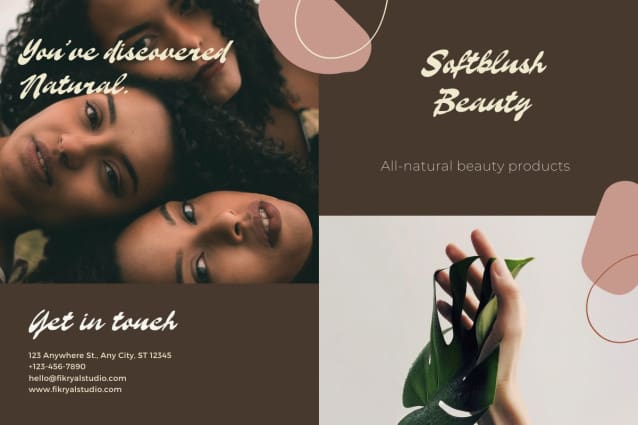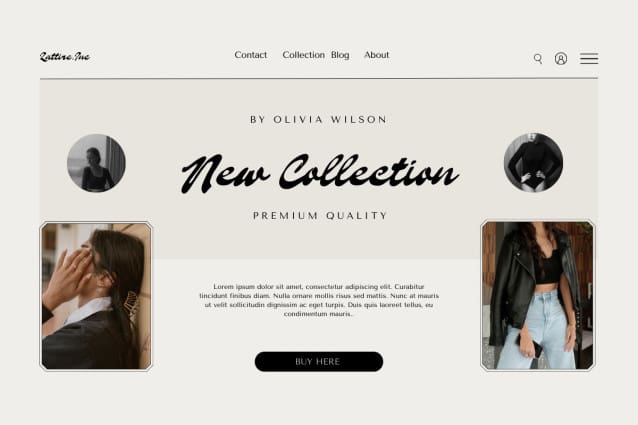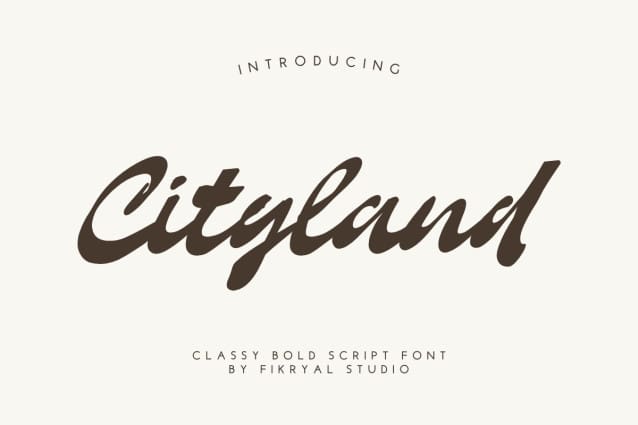
Cityland Script Font
Cityland Script Font is a font that combines elegance and boldness in a script style. Crafted with meticulous care, this font showcases unique organic characteristics, indicating that each letter is formed with a gentle yet powerful touch by hand. With its distinctive elegance, Cityland presents a captivating and charming style, perfect for projects that require a luxurious and classy impression.
Although created organically, Cityland Script has also been refined with careful digital touches, ensuring the clarity and sharpness of each letter. With these characteristics, the Cityland Script becomes the ideal choice for designers seeking the perfect combination of natural beauty and digital precision in every detail.